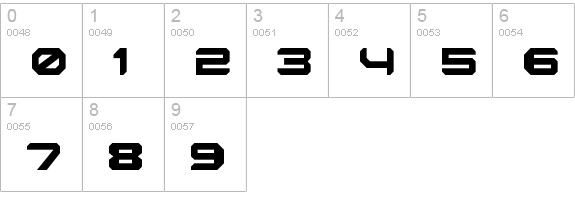
Introducing Robotaur font, a modern and sleek typeface designed to bring a futuristic touch to your projects. With its sharp lines and bold appearance, Robotaur is perfect for creating eye-catching headlines, logos, and branding materials. This versatile font exudes confidence and sophistication, making it a great choice for a wide range of design applications. What sets Robotaur apart is not only its striking design but also the fact that it is available for free. Yes, you read that right – Robotaur font is freely available to download at FontsMarket.com. Now you can elevate your designs without breaking the bank. Whether you're working on a personal project or a client's campaign, Robotaur font will help you stand out from the crowd with its unique style and flair. Don't miss out on the opportunity to add Robotaur font to your font library. Download it for free today at FontsMarket.com and start creating stunning designs that leave a lasting impression.